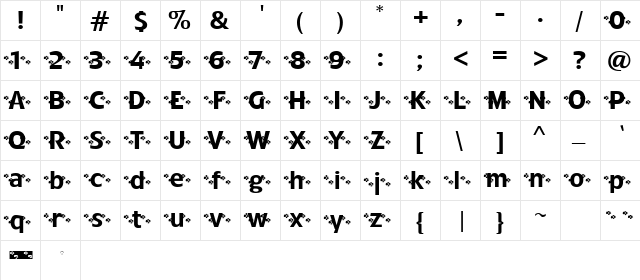
FerretFootPrints Regular
Design Context for FerretFootPrints Typeface
FerretFootPrints is a composed and adaptable typeface that performs quietly and consistently across a wide range of design contexts.